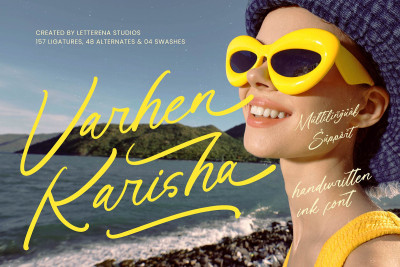
Varhen Karisha Handwritten Ink Font
Varhen Karisha Handwritten Ink stands out as a reliable typeface choice for designers seeking clarity without sacrificing character.
Its proportions suit a wide range of uses: website headers, printed flyers, restaurant menus, annual reports, and product packaging.